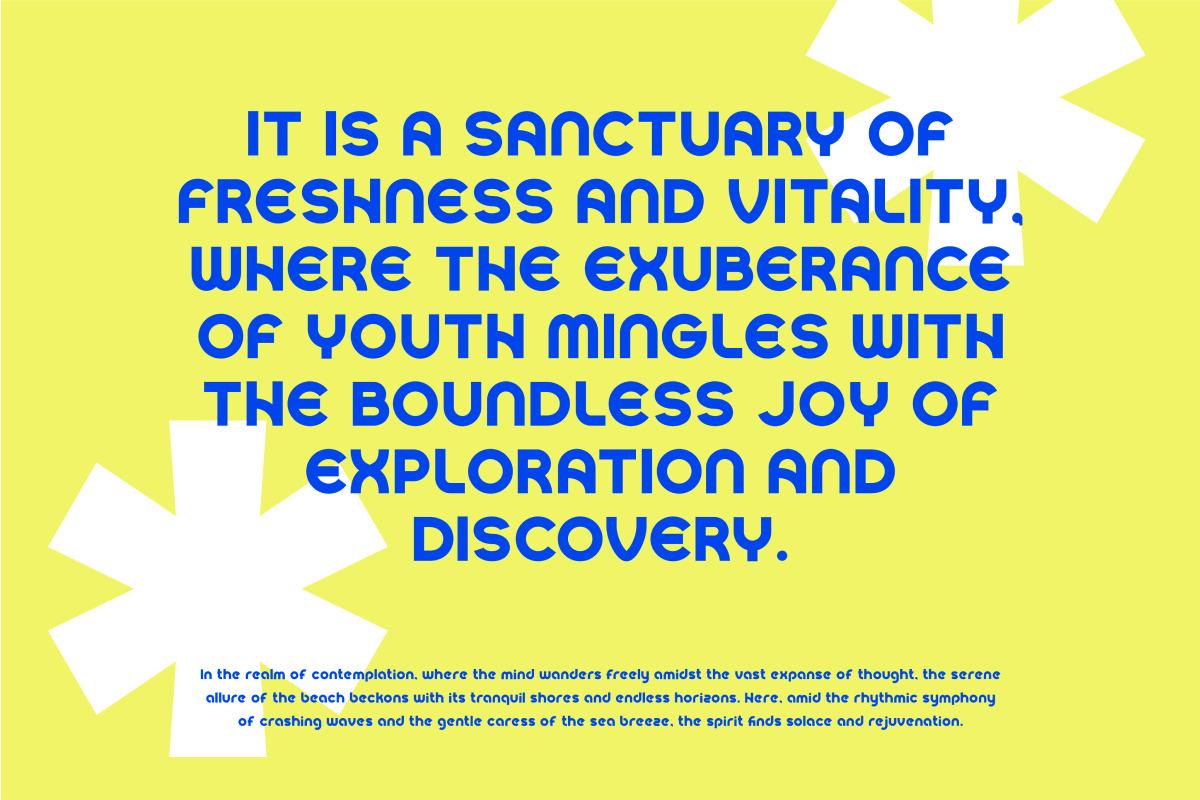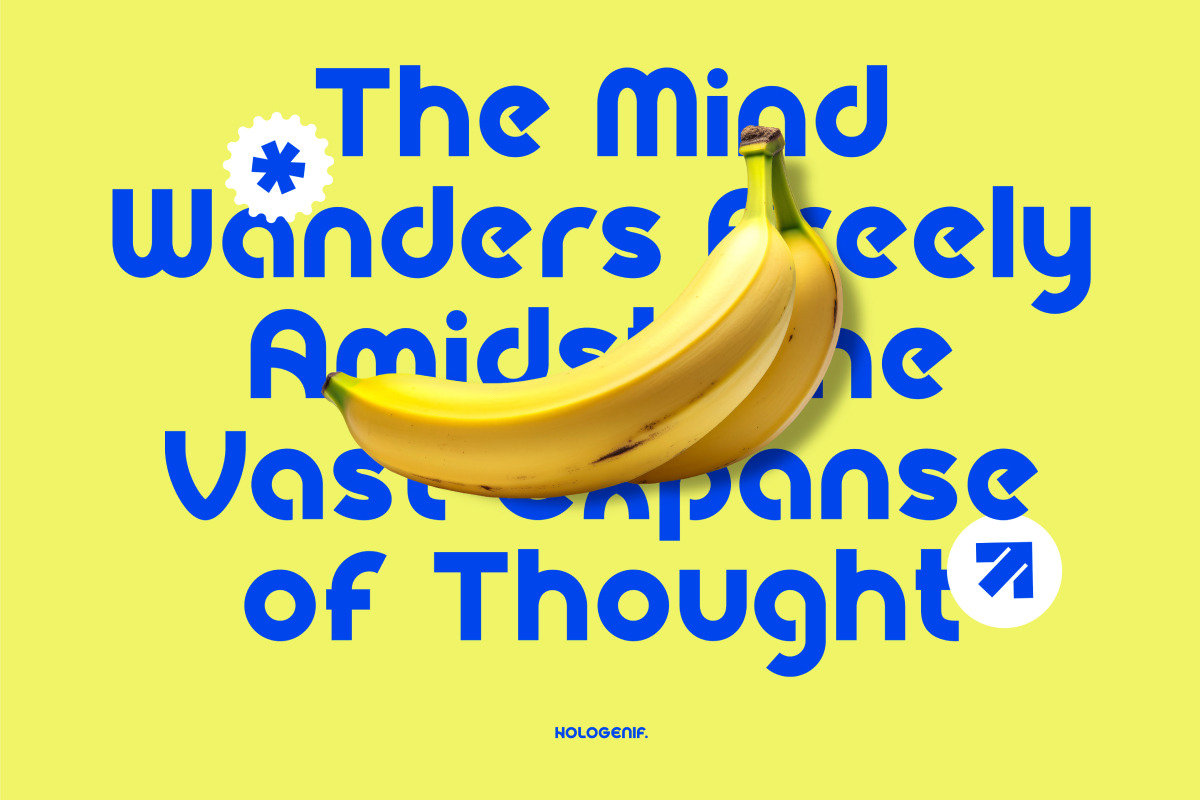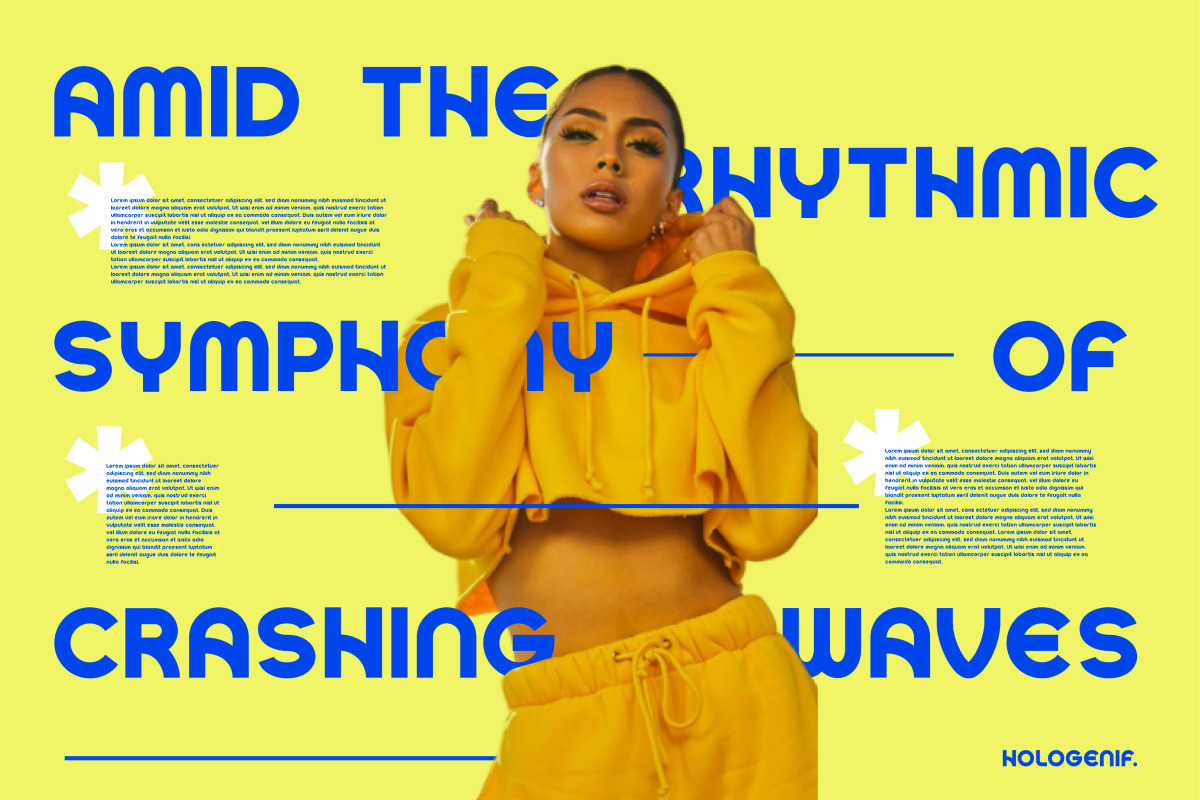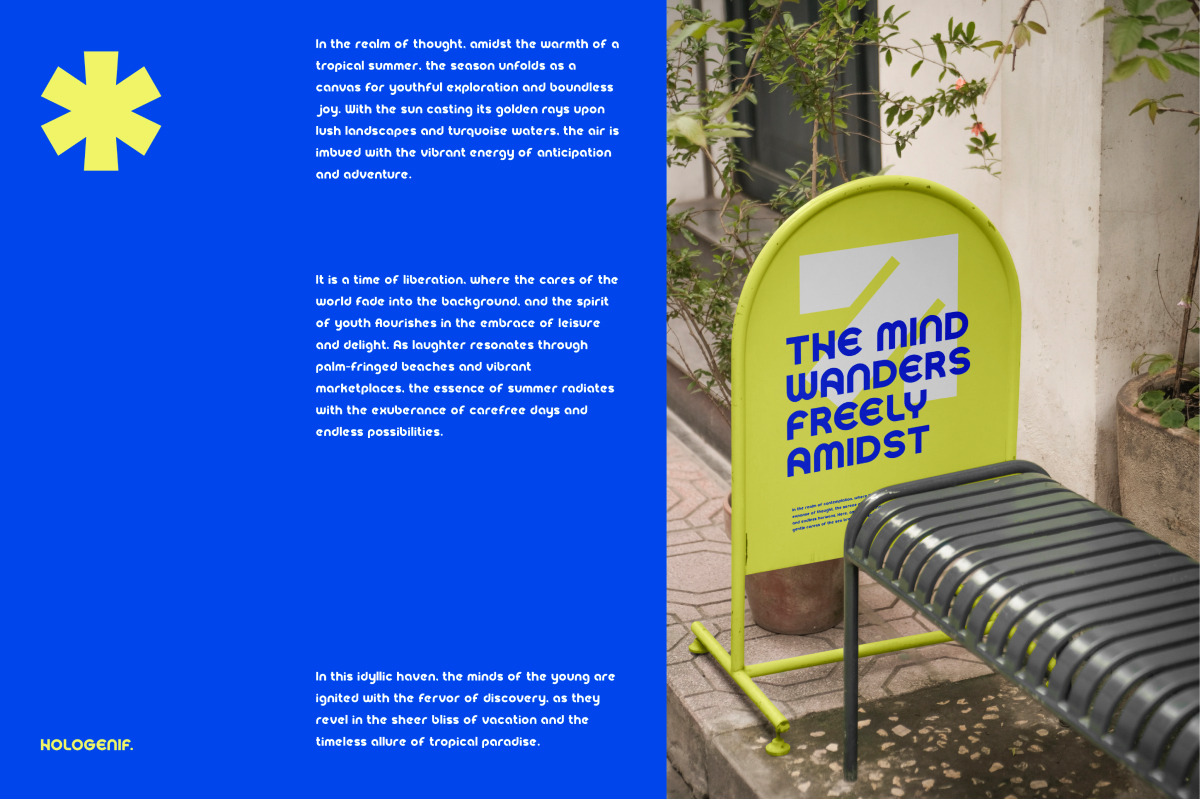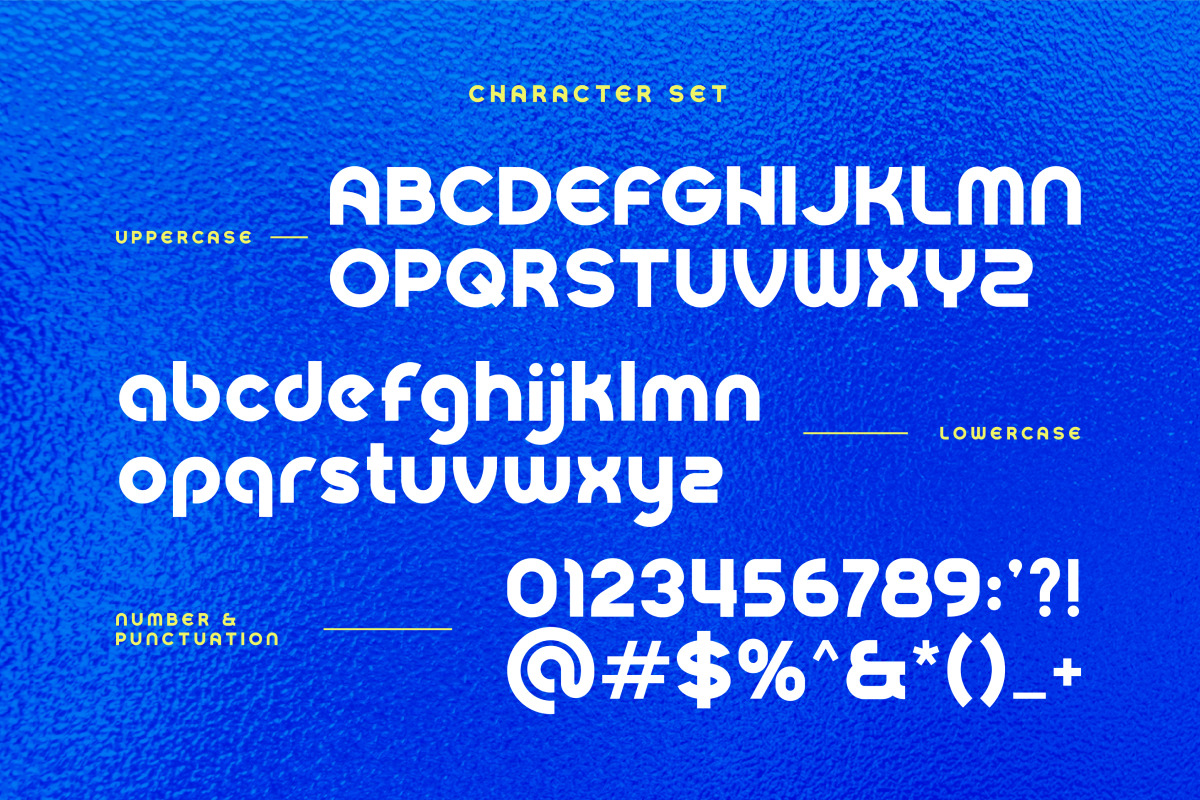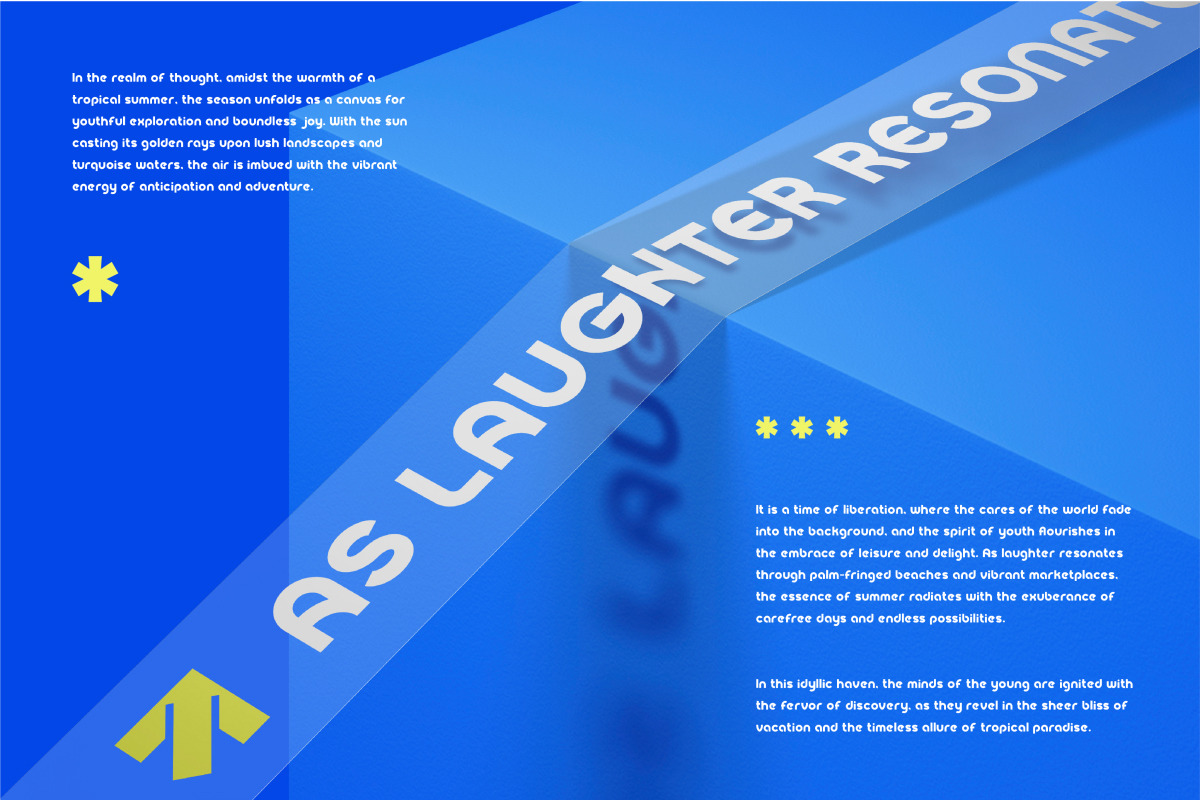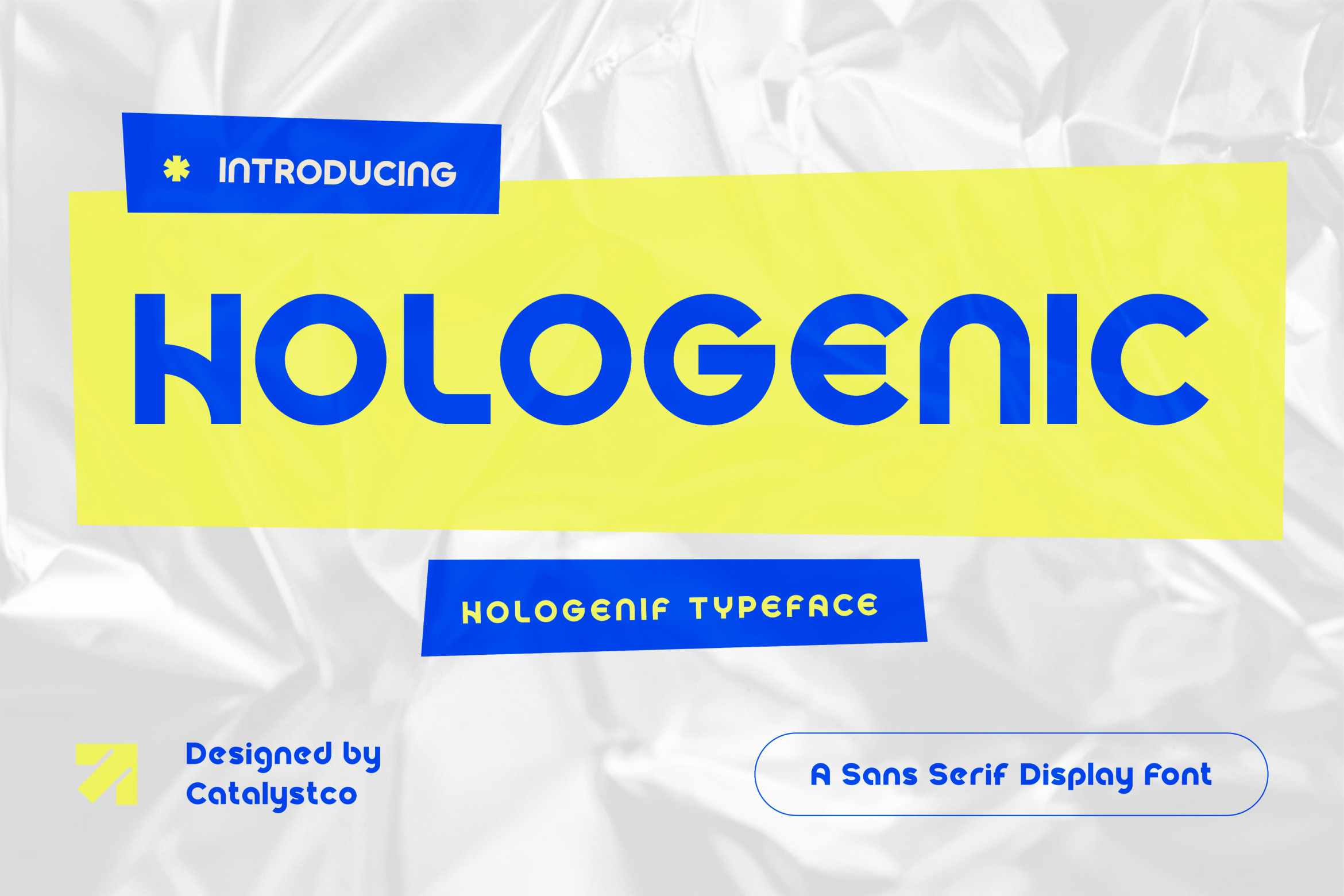
Hologenic Sans Serif Font
Hologenic Sans Serif Font typeface excellent used for the manufacture quote text, logotype, header magazine, and many more.